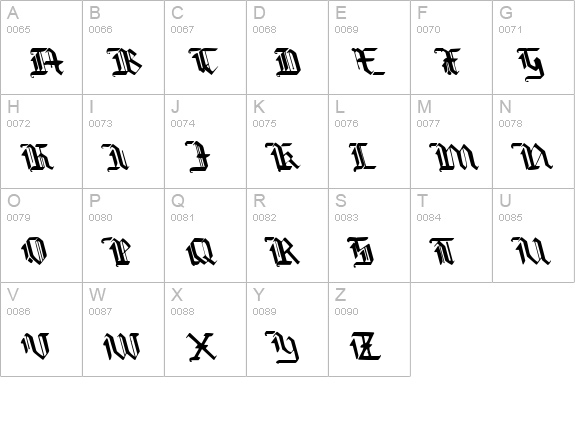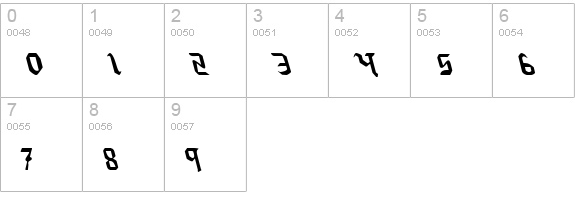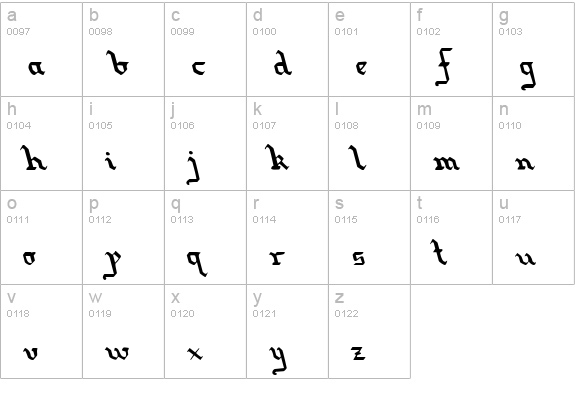
Redcoat Leftalic is a sleek and elegant font that exudes sophistication and charm. Its italicized style adds a touch of flair to any design project, making it perfect for invitations, branding, and editorial purposes. The graceful curves and fine lines of Redcoat Leftalic will captivate your audience and leave a lasting impression. What's even better is that Redcoat Leftalic is available for free download at FontsMarket.com. This means you can easily access this stunning font and elevate your designs without any cost. Don't miss out on the opportunity to enhance your creative projects with the exquisite beauty of Redcoat Leftalic. Download it now and let your creativity shine!